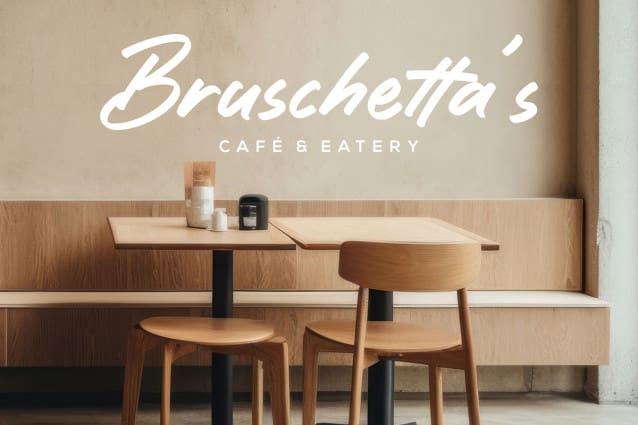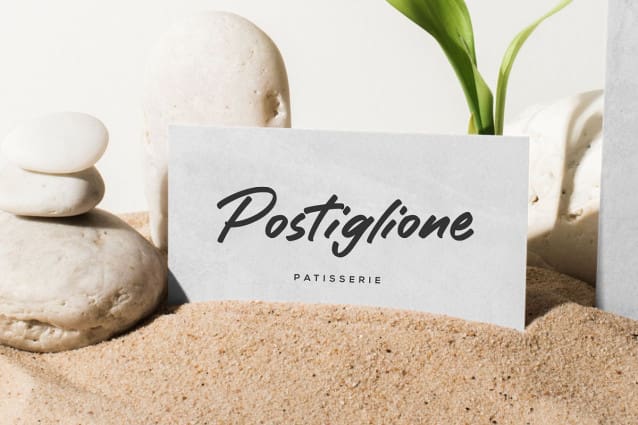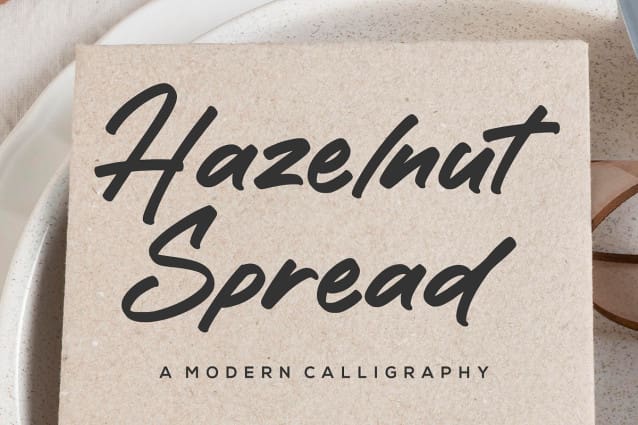
Hazelnut Spread Typeface
Hazelnut Spread Typeface is a Modern Font that’s perfect for adding a touch to your design projects! Hazelnut Spread is a cute and vintage styled handwritten font. Whatever the topic, this font will be a wonderful asset to your font library, as it has the potential to enhance any creation.
Crafted with care and attention to detail, this font is incredibly versatile and can be used for a range of design projects, including logos, branding, invitations, and more.
Its modern, handwritten style gives it a unique character that’s sure to make an impact.